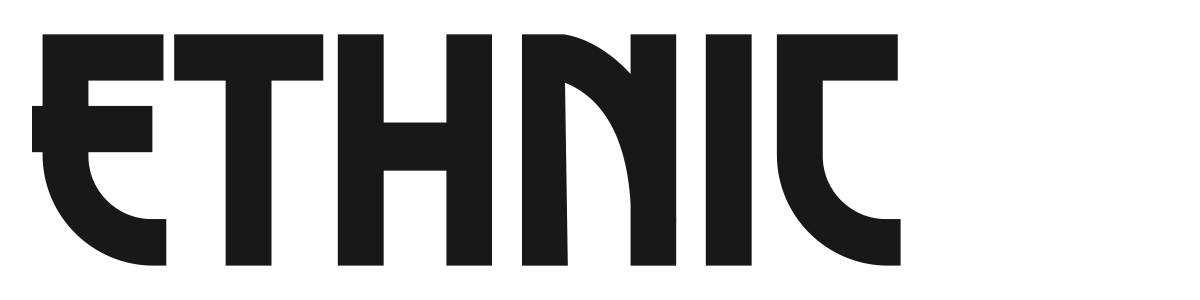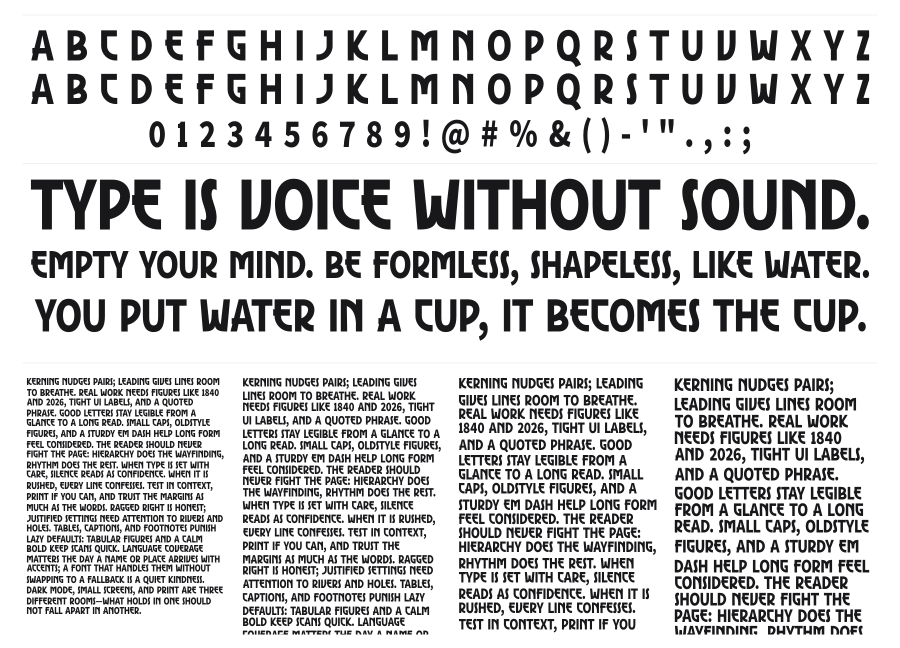
Ethnic
Ethnic is a heavy condensed display sans with bold strokes and distinctive notched terminals that give it a tribal, Art Deco-inflected character. The tall narrow proportions and angular incisions create a strong visual presence that evokes cultural adventure and vintage exoticism. It commands attention at large sizes in posters, packaging, and identity work.